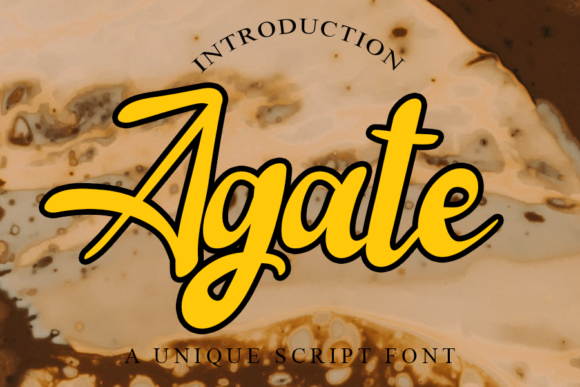
The Agate Font: A Gorgeous Handwritten Style for Your Creative Projects
I’ll never forget the design project that led me to discover the Agate font. I was working on a magazine layout, and I needed a font that would add a touch of elegance and sophistication to the title pages. After hours of scrolling through font libraries and trying out different combinations, I stumbled upon Agate. Its subtly retro style and bold yet elegant vibe immediately caught my attention, and I knew I had found the perfect fit.
An Honest Review of Agate Font
What I Love About Agate ✨
- 💫 A beautiful, handwritten script that’s perfect for adding a personal touch to any project
- ✅ Highly versatile and suitable for a wide range of applications, from magazines and books to business cards and watermarks
- 🔥 A bold yet elegant style that adds a touch of sophistication to any design
- 👍 Easy to read and understand, even in smaller font sizes
- ⚠️ Some users may find the font a bit too ornate or decorative for certain projects
- 🤔 Limited availability of certain OpenType features and glyphs in certain software or platforms
The Backstory of Agate Font
Agate was designed by a team of typographers who wanted to create a font that would capture the essence of retro elegance. Inspired by vintage typography and classic scripts, Agate was crafted with a subtly retro style that would add a touch of sophistication to any design. With its bold yet elegant vibe, Agate has become a popular choice among designers and crafters who want to add a personal touch to their creative projects.
| Font Name | Agate Font |
| Author | merge354 |
Q: What is the Agate font?
A: Agate is a gorgeous handwritten font crafted with a subtly retro style. It’s perfect for adding a touch of elegance and sophistication to any design.
Q: Is Agate a difficult font to read?
A: No, Agate is a highly legible font that’s easy to read and understand, even in smaller font sizes.